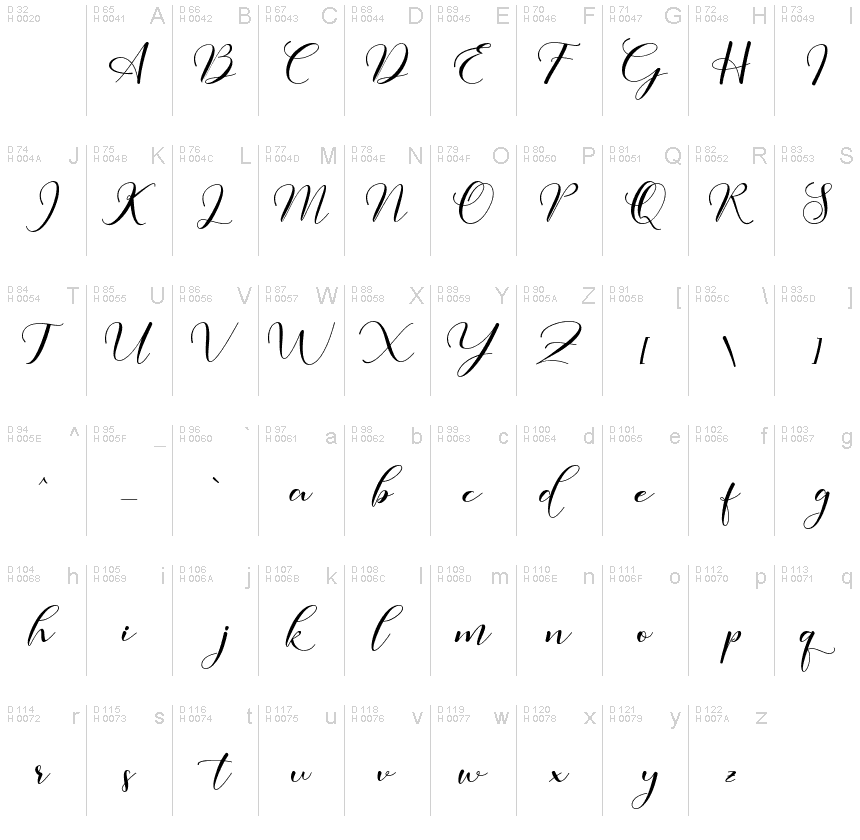
Sweet Valentines
Sweet Valentines is a Valentine-style calligraphy font designed by Nox Studio 2021 (Sarif Hidayat). Its light weight makes it perfect for creating romantic cards, wedding invitations and other special occasions. It can also be used to add a touch of tenderness to any project.